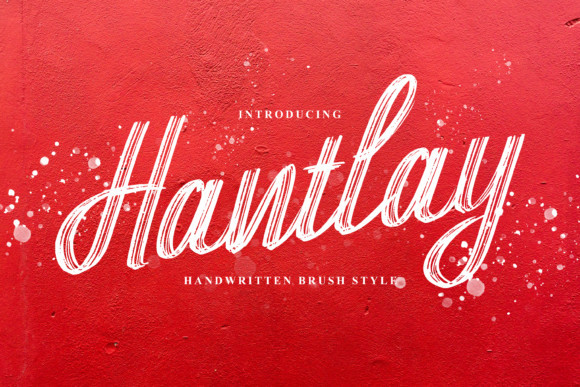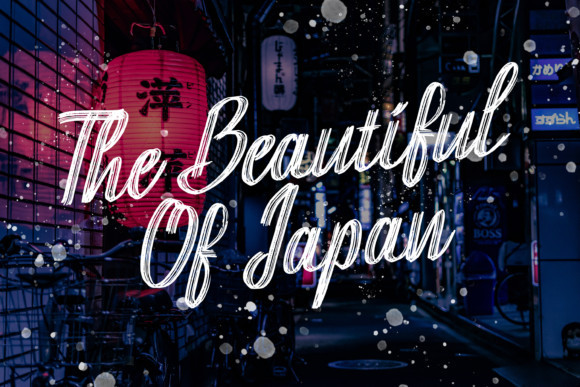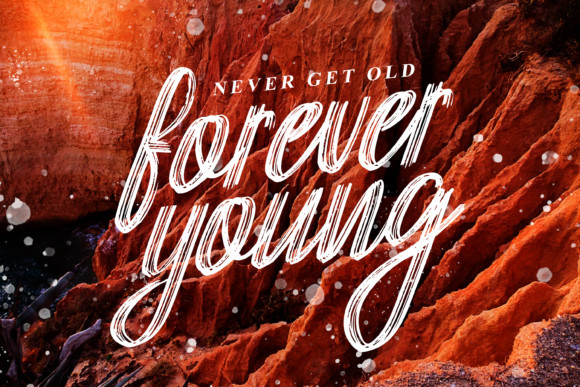
Hantlay Font
Hantlay is a cursive and beautiful brushed handwritten font. This original look will appeal to a wide range of crafty ideas, from letterheads and titles, to stationery.